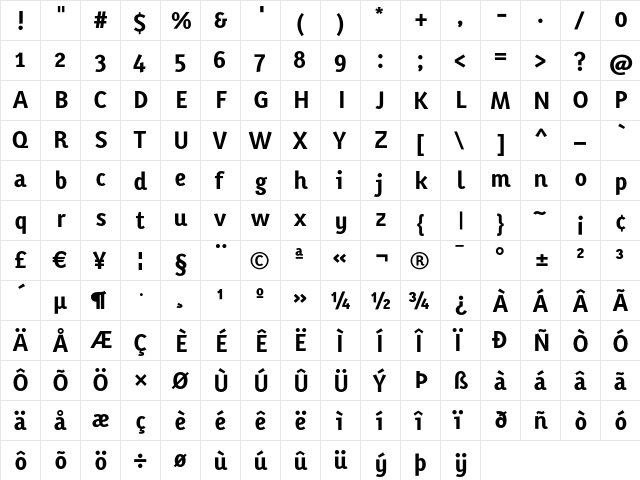
Karbid Bold
Design Context for Karbid Typeface
Karbid offers clean, dependable letterforms without strong stylistic allegiance, making it a practical choice for designers who need flexibility. The heavy weight commands attention and anchors typographic hierarchies.